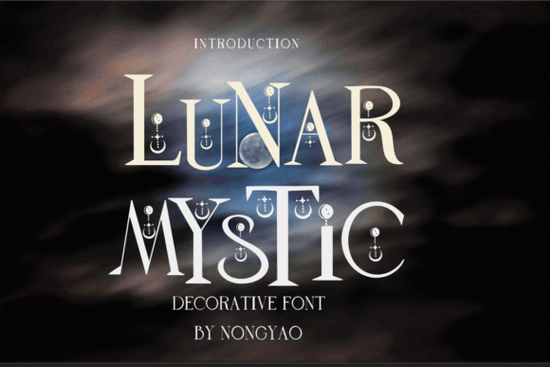
If you've been searching for a decorative typeface that feels both personal and artistic, Lunar Mystic might be exactly what you need. This hand-lettered-style font brings a warm, handcrafted quality to any project, whether you're designing greeting cards, journaling spreads, or social media graphics. It's especially popular among decorative font enthusiasts who want something that looks organic without being hard to read.
What Makes This Font Stand Out?
Lunar Mystic has a flowing, slightly whimsical character that sets it apart from typical script or display fonts. Each letter carries subtle variations that mimic natural handwriting, which gives your designs an authentic, personal feel. It works well at both small and medium sizes, making it flexible for a range of projects.
The font includes:
- Uppercase and lowercase letters with gentle curves
- Numbers and basic punctuation for everyday use
- Consistent spacing that keeps text readable
Unlike overly ornate decorative fonts, this one strikes a balance between style and legibility. You won't have to sacrifice readability for aesthetics.
Best Ways to Use Lunar Mystic
This font shines in projects where you want a handcrafted, intimate tone. Here are some practical ideas based on how designers and crafters actually use it:
- Greeting cards – Birthday cards, thank-you notes, and holiday greetings all benefit from its personal feel.
- Journal and diary headers – Use it for section titles or cover text in planner layouts.
- Print-on-demand products – Mugs, tote bags, and t-shirts with short phrases or quotes look great in this style.
- Social media posts – Instagram stories, Pinterest pins, and quote graphics get a handmade touch.
- Stationery design – Letterheads, stickers, and labels for small brands or Etsy shops.
- Banners and signage – Event invitations, sale announcements, and booth displays.
It pairs especially well with clean sans-serif fonts. Use Lunar Mystic for headings or accent text, then pair it with a simple body font to keep your layout balanced.
How Does It Compare to Other Decorative Fonts?
Lunar Mystic sits somewhere in between. It's not as aggressive as some bold display fonts, but it's more expressive than a standard handwritten typeface. This middle ground makes it a solid go-to for a wide variety of projects.
Tips for Pairing and Layout
To get the most out of this font, keep these design tips in mind:
- Limit it to headlines or short phrases. Like most decorative fonts, it works best in smaller doses. Long paragraphs in any ornate typeface become tiring to read.
- Pair with a neutral font. A simple sans-serif like Montserrat or Open Sans for body text will let Lunar Mystic stand out without overwhelming the design.
- Watch your spacing. Because of its flowing letterforms, you may want to add a bit of extra letter-spacing at smaller sizes.
- Test on different backgrounds. This font looks great on textured backgrounds like kraft paper or watercolor washes, which enhance its handmade quality.
Who Is This Font For?
Lunar Mystic is a great fit for anyone who creates designs that need a personal, warm touch:
- Crafters and hobbyists working on DIY projects, scrapbooking, or handmade gifts
- Print-on-demand sellers looking for unique fonts to differentiate their products
- Small business owners designing packaging, labels, or marketing materials
- Social media managers creating branded content with personality
- Graphic designers who need a reliable decorative option in their toolkit
With its handcrafted charm and versatile nature, Lunar Mystic is a strong addition to any designer's font collection. Whether you're creating one card or launching an entire product line, it gives your work a personal touch that feels genuine rather than generic.